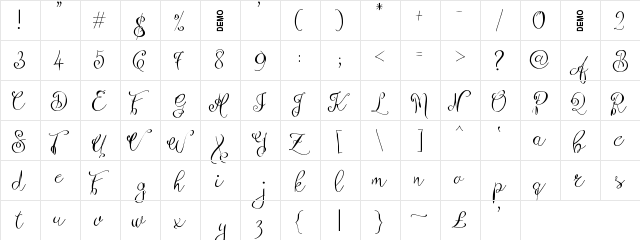
Zenyth Script
Design Context for Zenyth Typeface
Zenyth brings a calligraphic fluidity to the page — its connecting strokes and expressive curves give it an unmistakably human quality.
Font Pairing: Combine Zenyth with a simple geometric sans for maximum contrast — the tension between flowing curves and clean structure is a classic typographic pairing.
Pro Tip: Pair Zenyth with a clean sans-serif for supporting text. The contrast between fluid script and geometric structure creates an elegant typographic hierarchy.